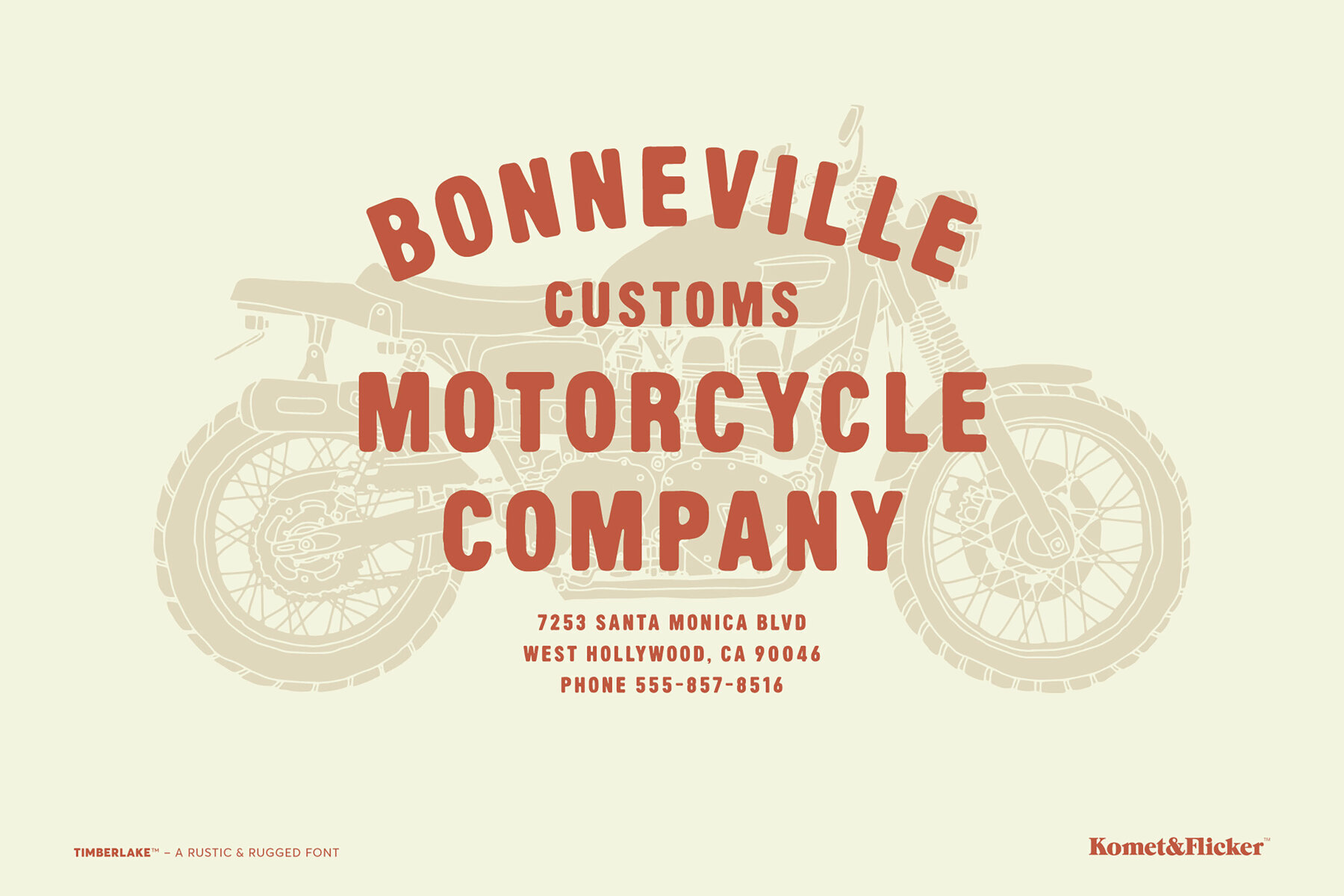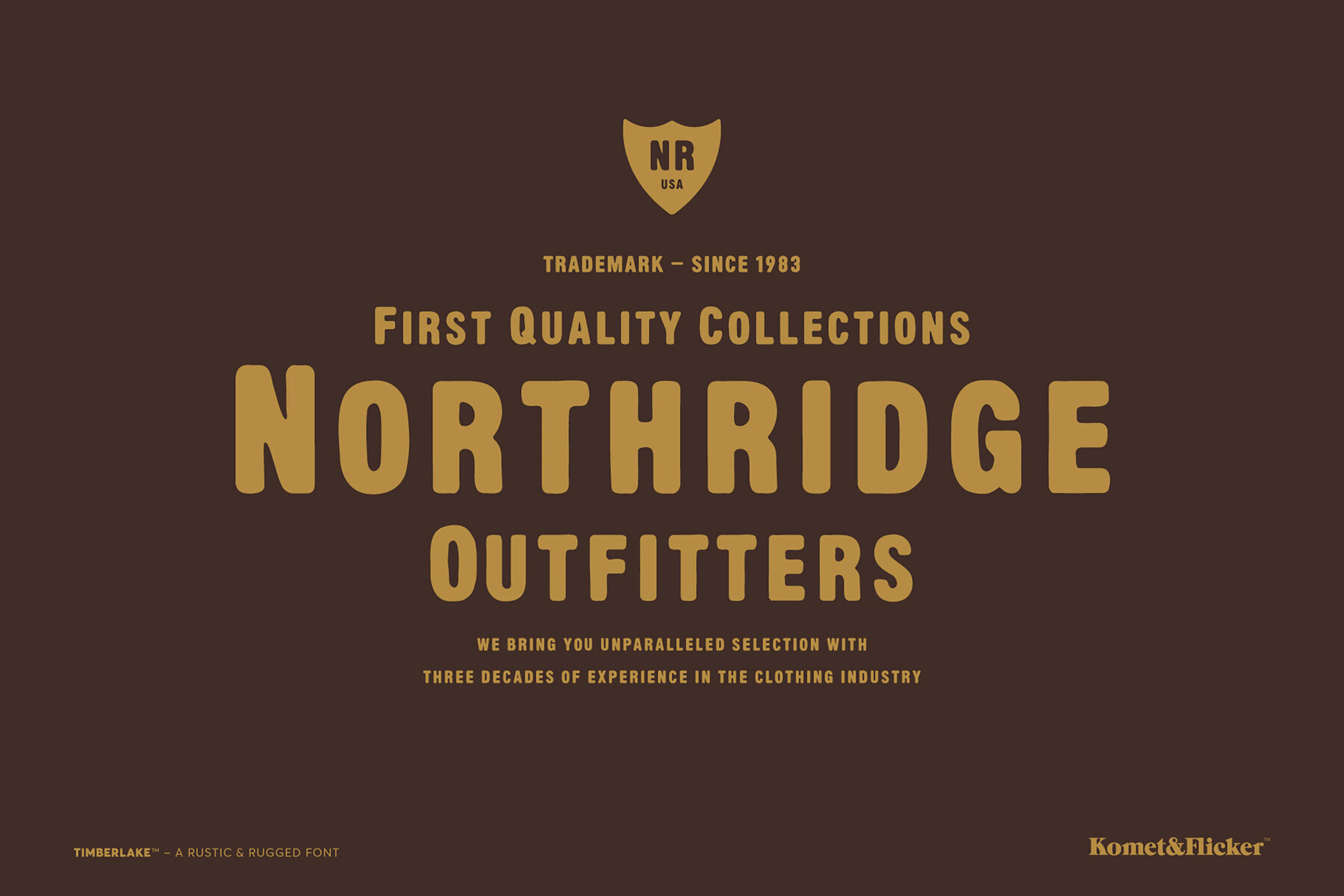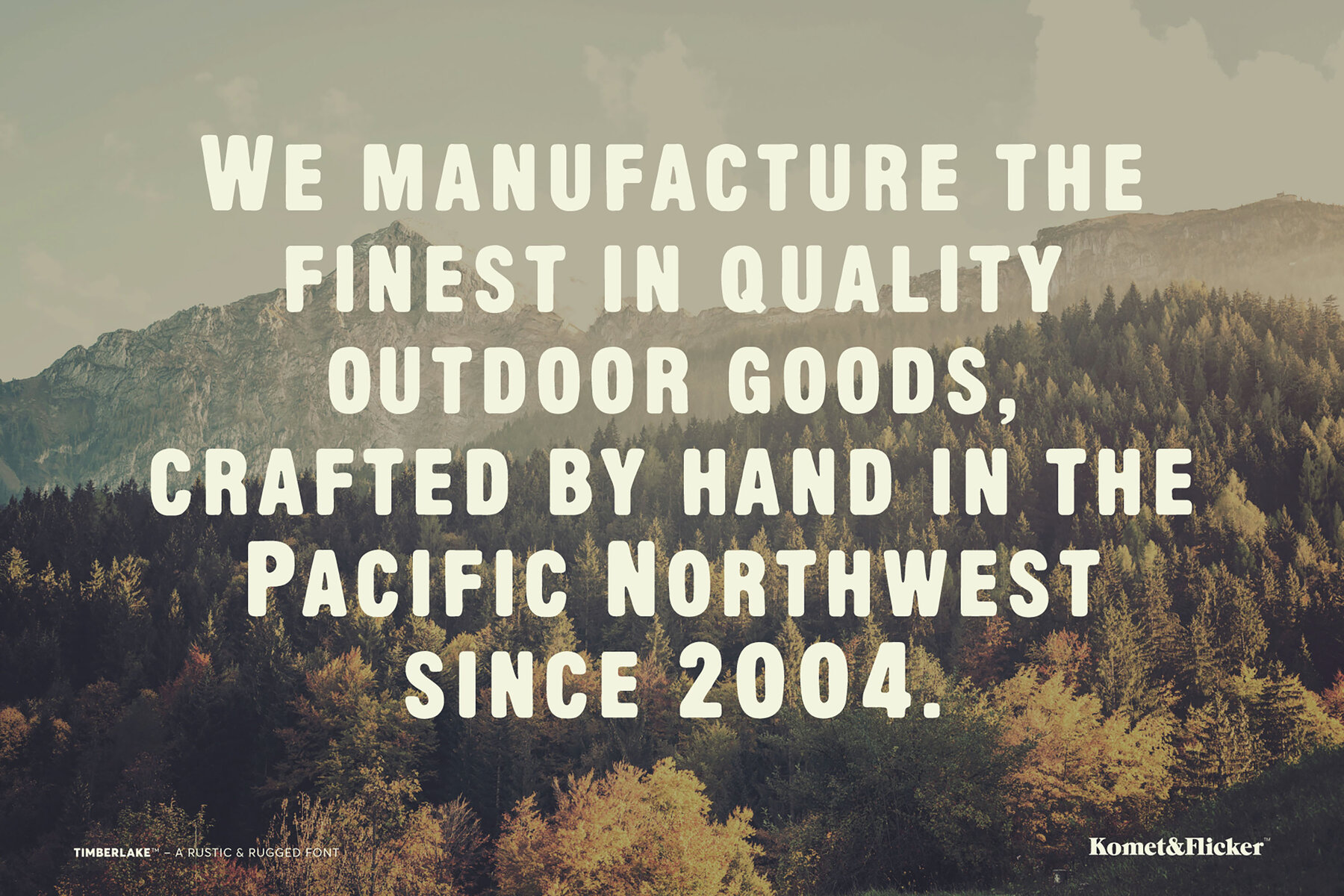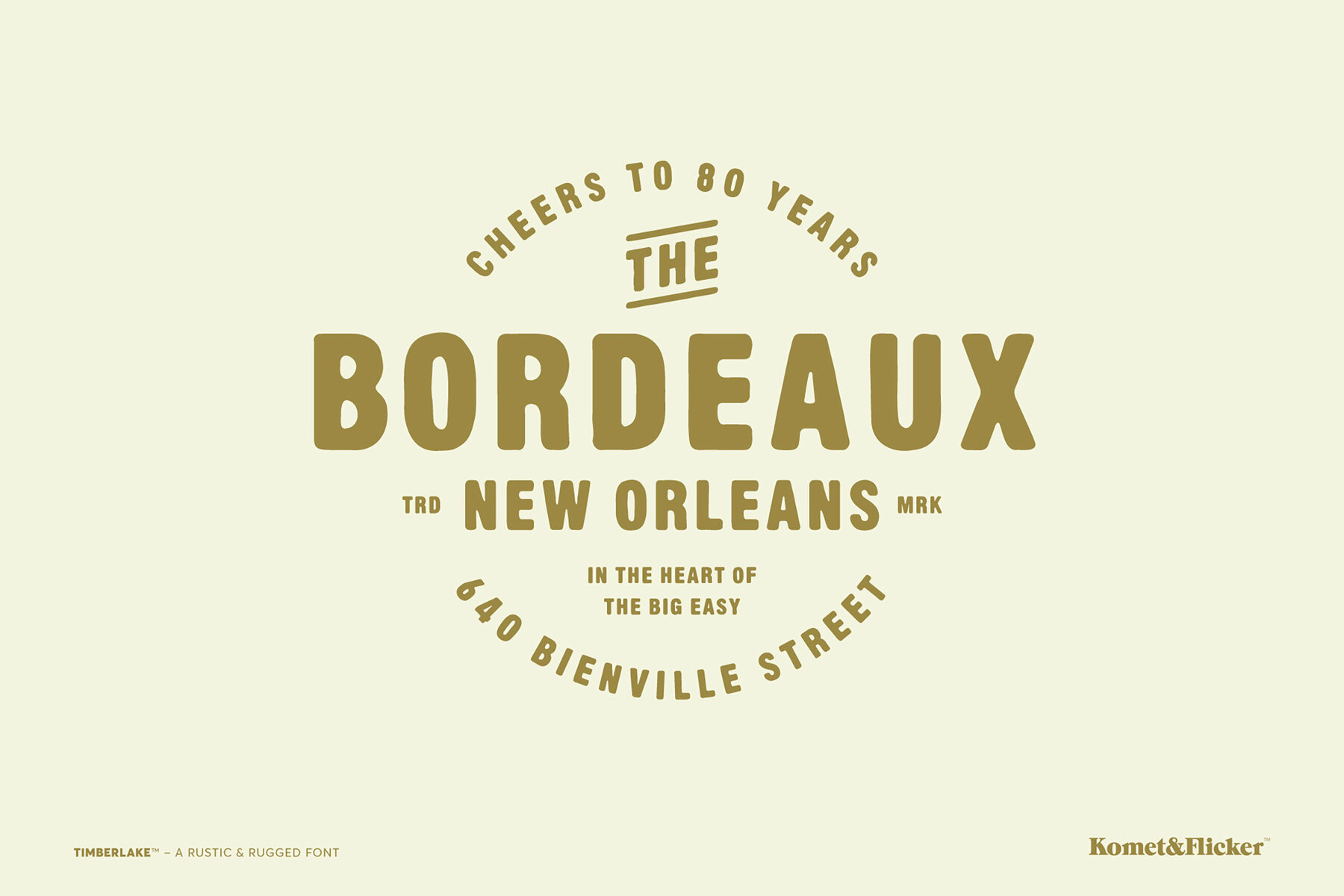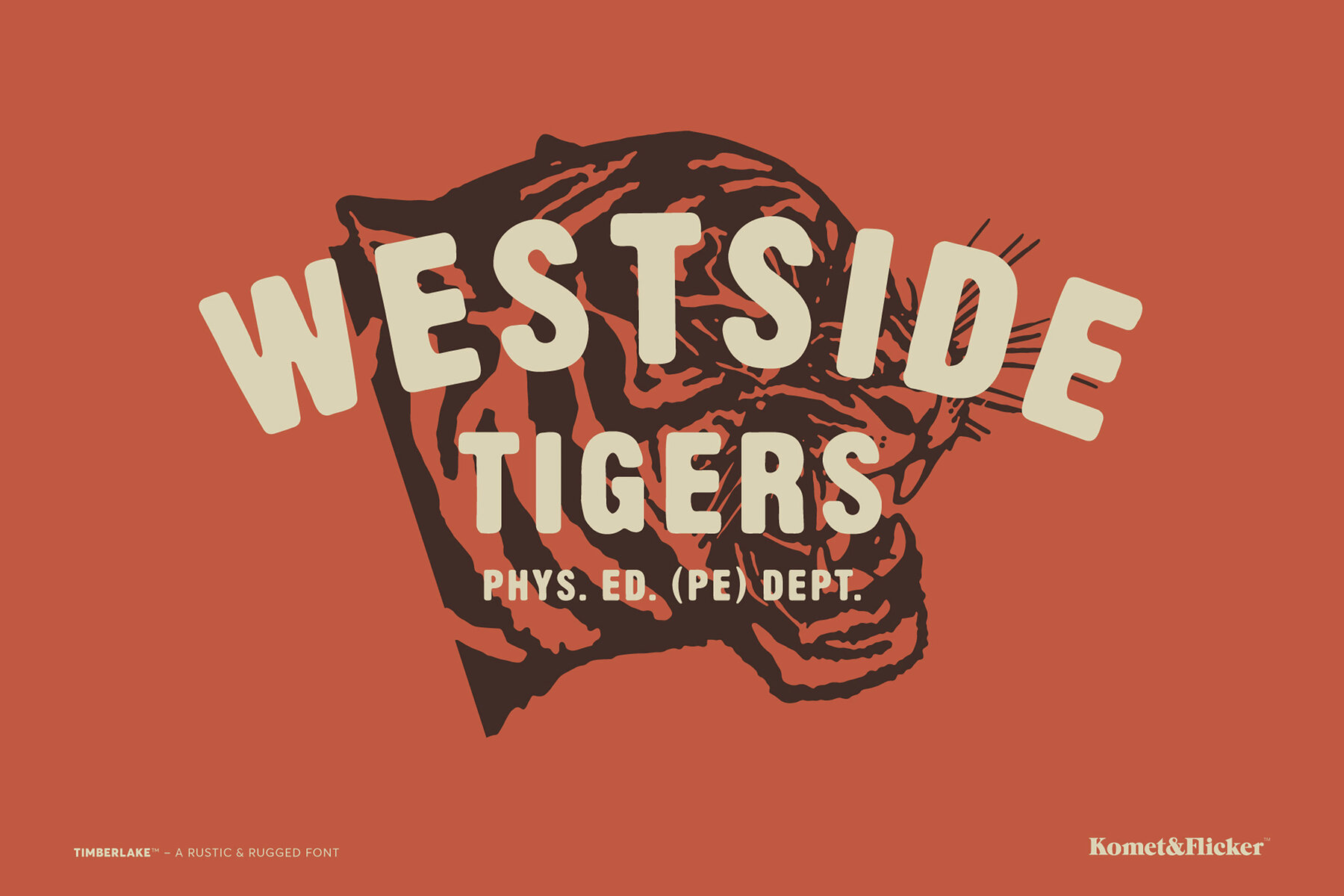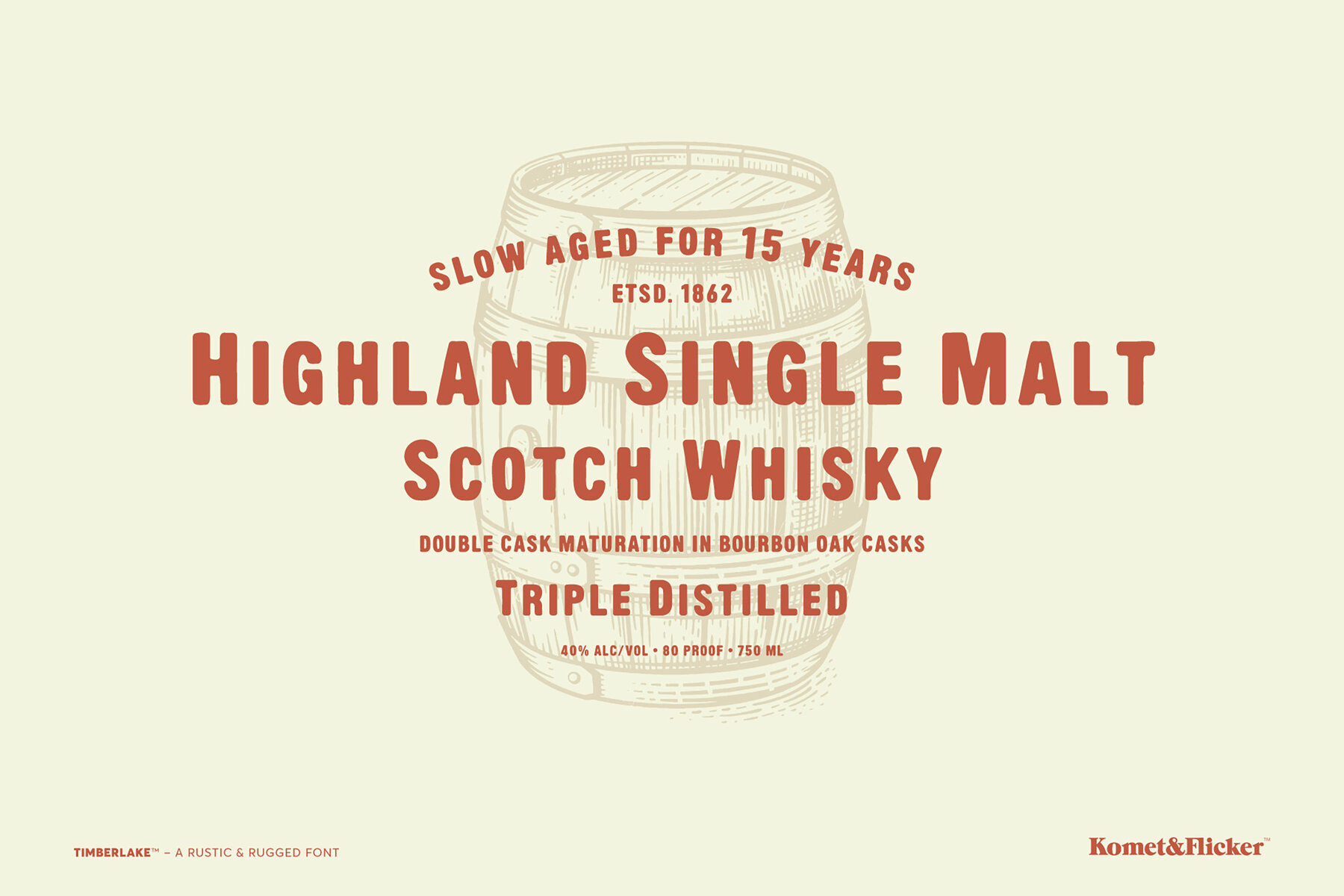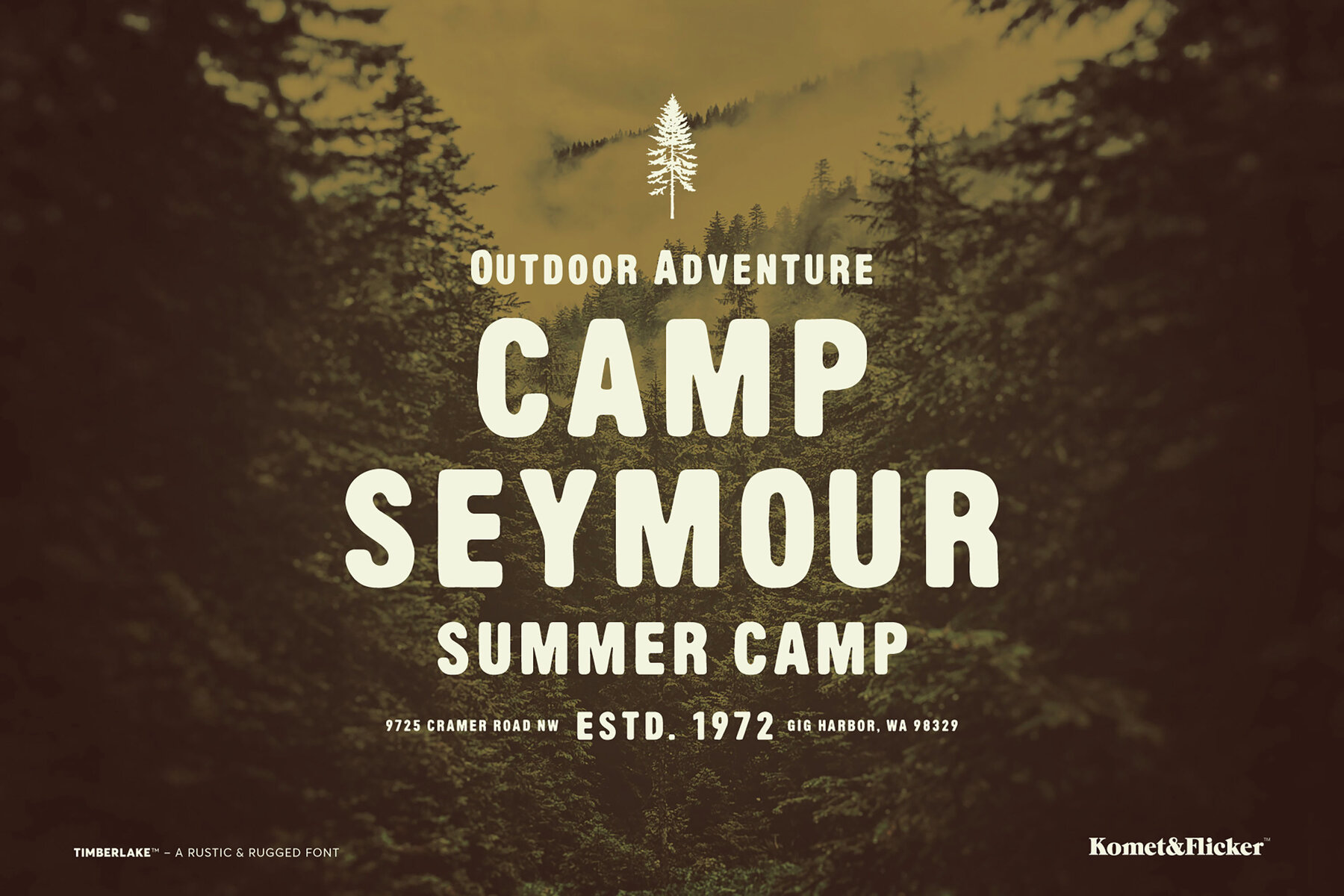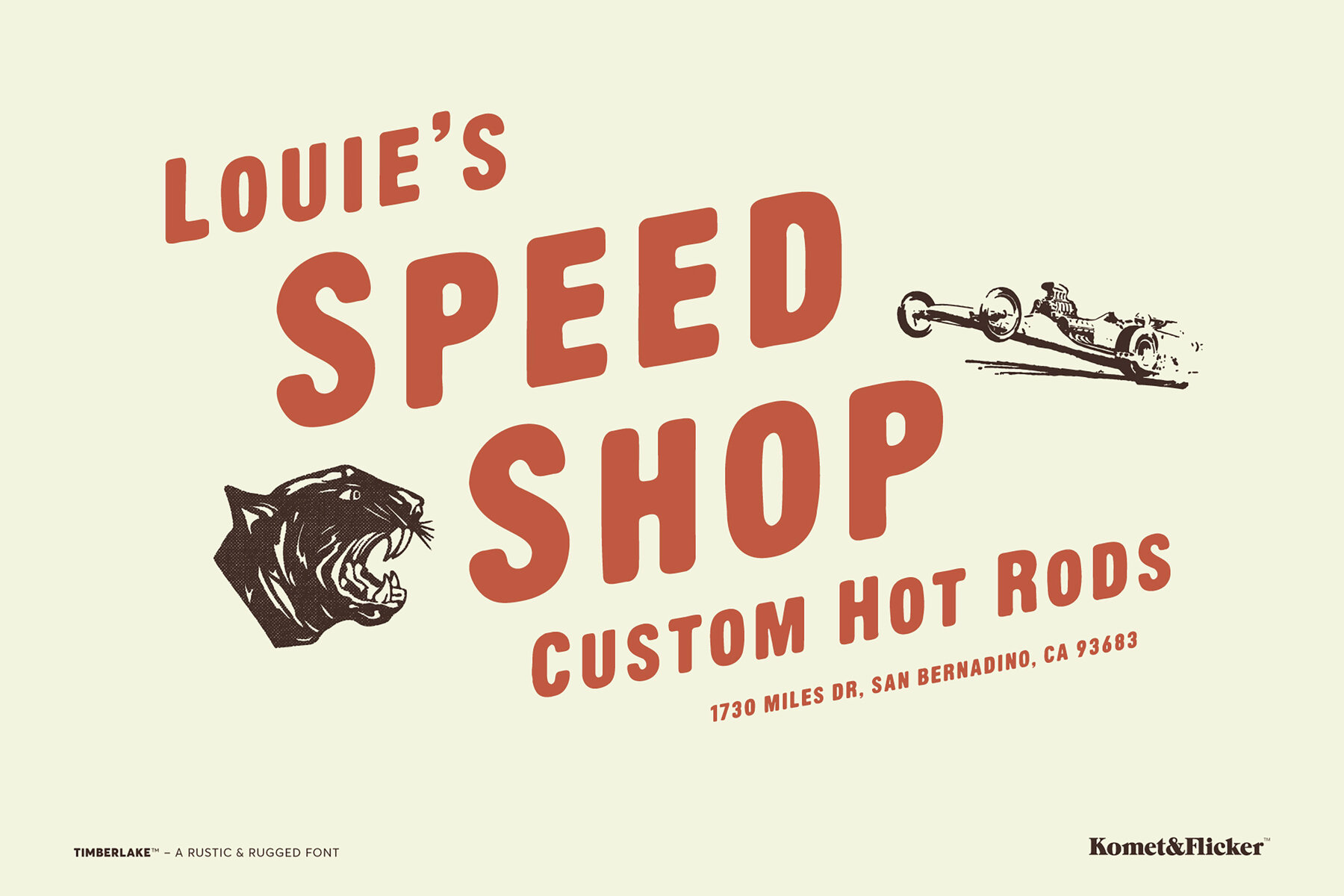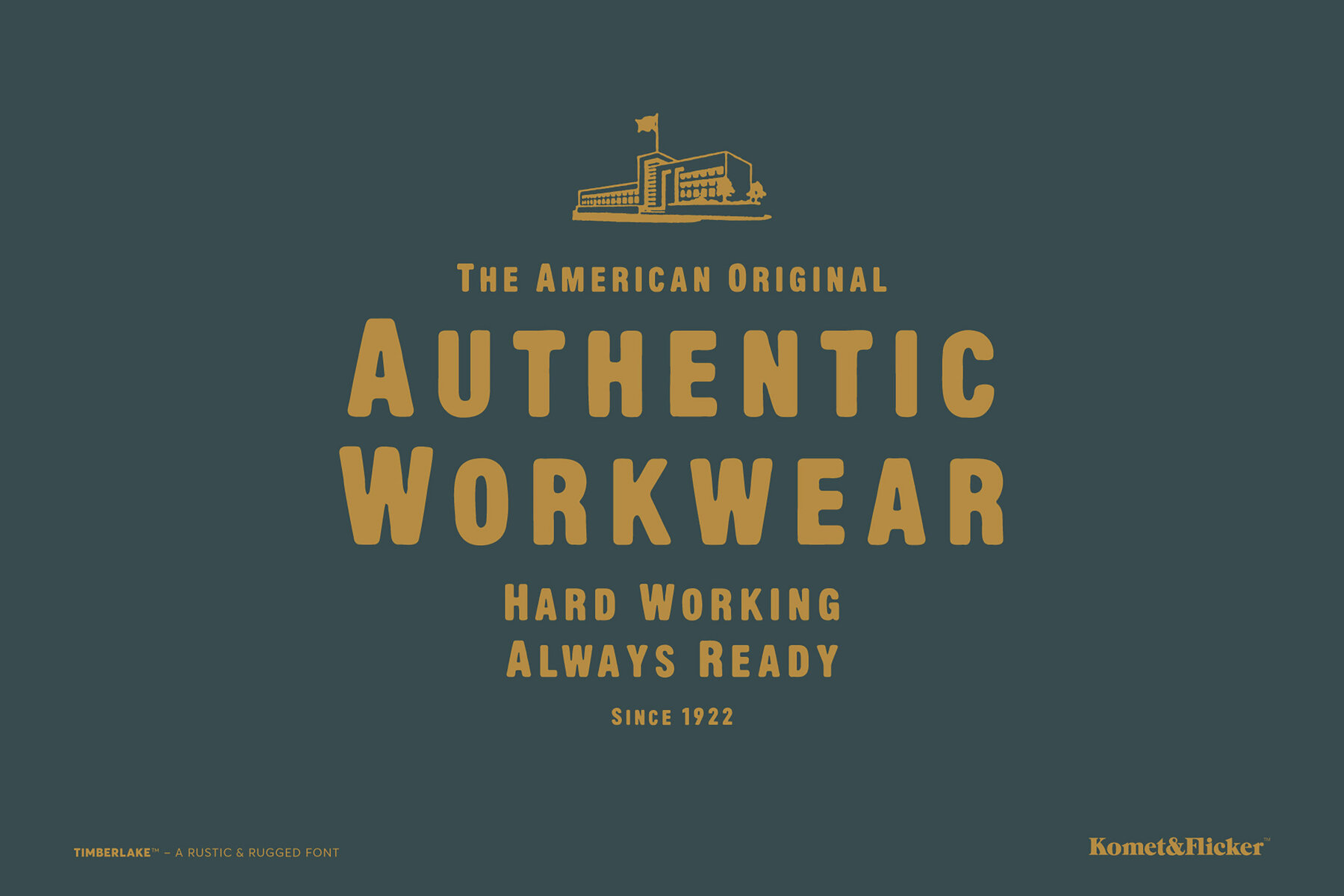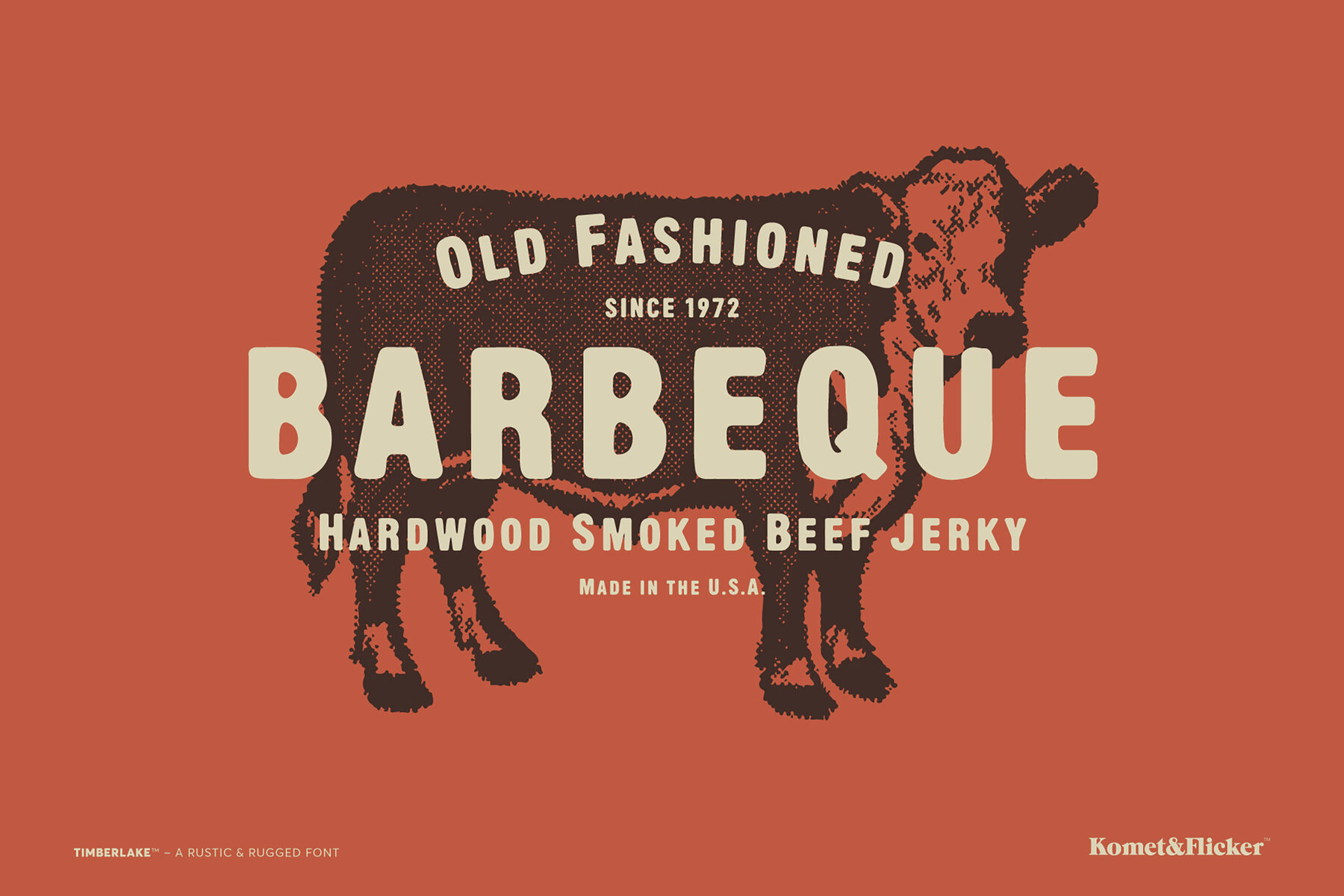
Timberlake Font
Timberlake Bold
Ascend to Timberlake, the small caps font that embodies the spirit of outdoor adventure! This font’s rugged charm brings a rustic, well-worn feel to your designs, infusing them with a sense of authenticity that resonates with outdoor enthusiasts and wanderers alike. Whether you’re crafting branding for outdoor-themed projects, cozy coffee shops, vintage apparel, or artisanal beer and spirits labels, Timberlake is your go-to choice. Its rustic letterforms evoke the great outdoors, making every word feel like an invitation to explore. Plus, Timberlake comes with a unique set of 20 custom connecting words (10 words in two styles), designed to add seamless flow to your typography. Elevate your design game with Timberlake, and let every project tell its own story of adventure! THIS FONT INCLUDES